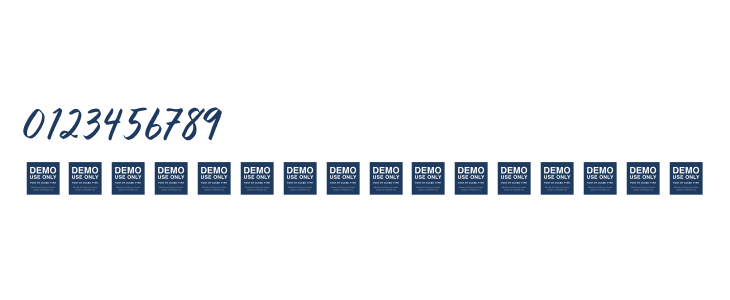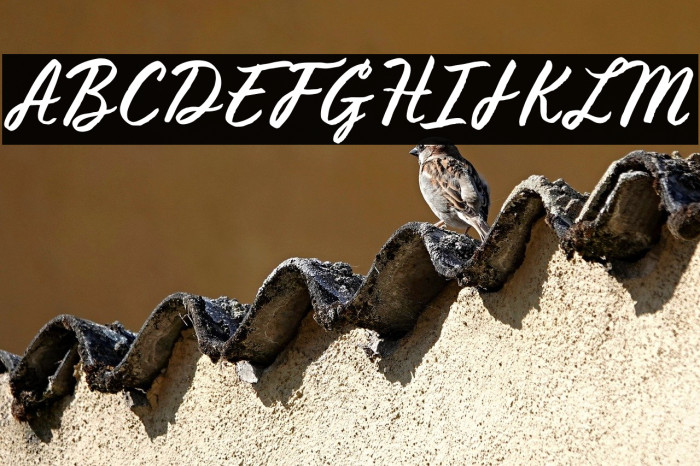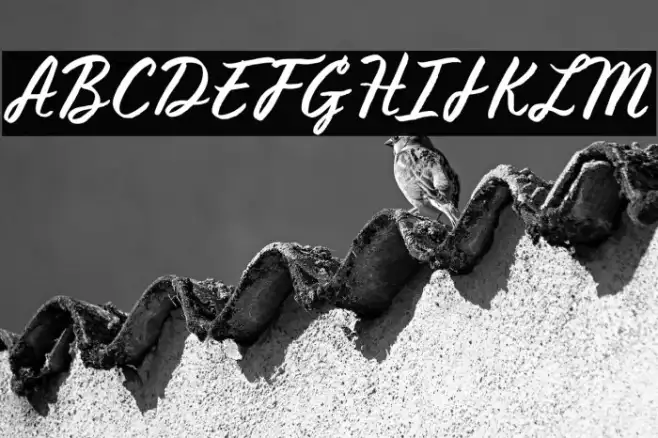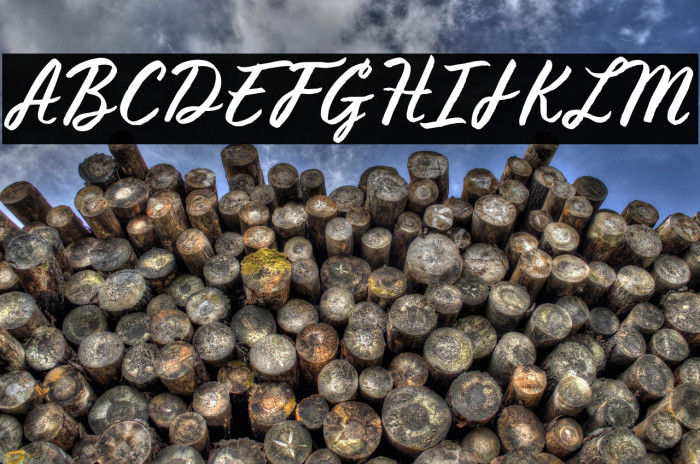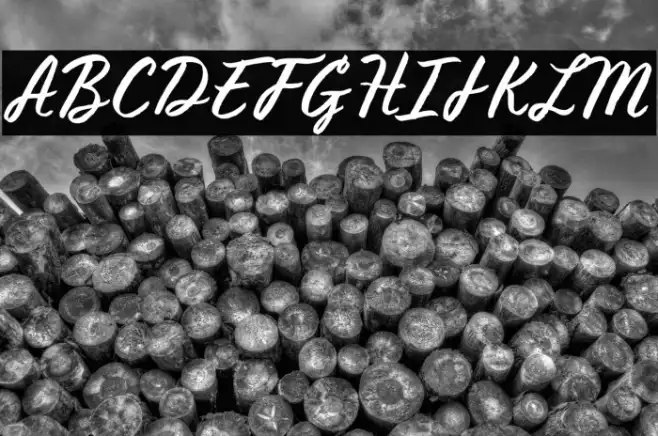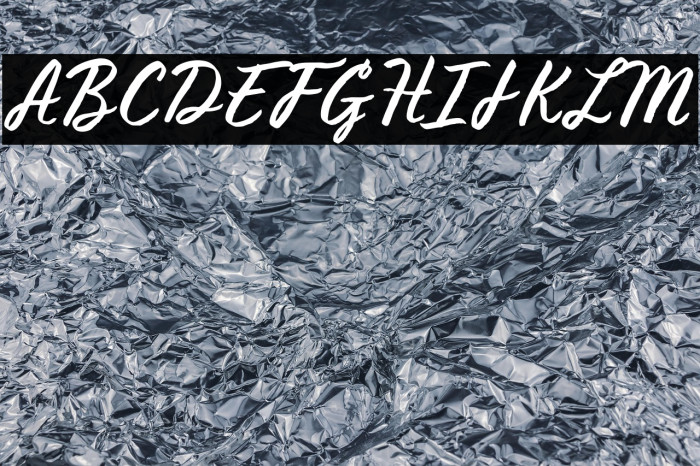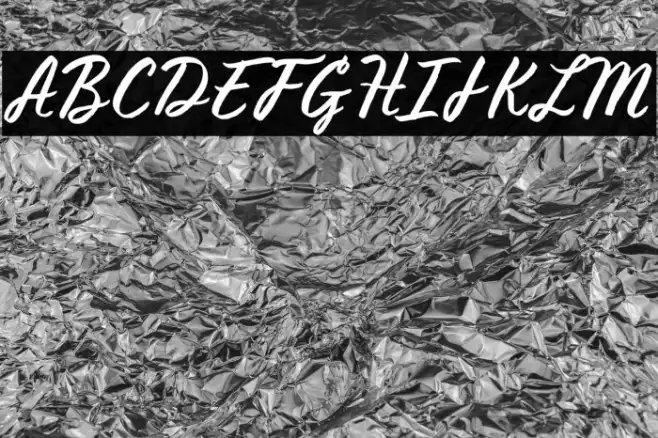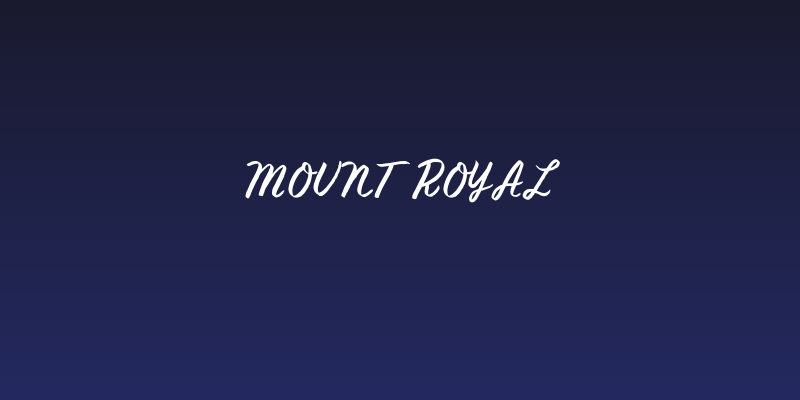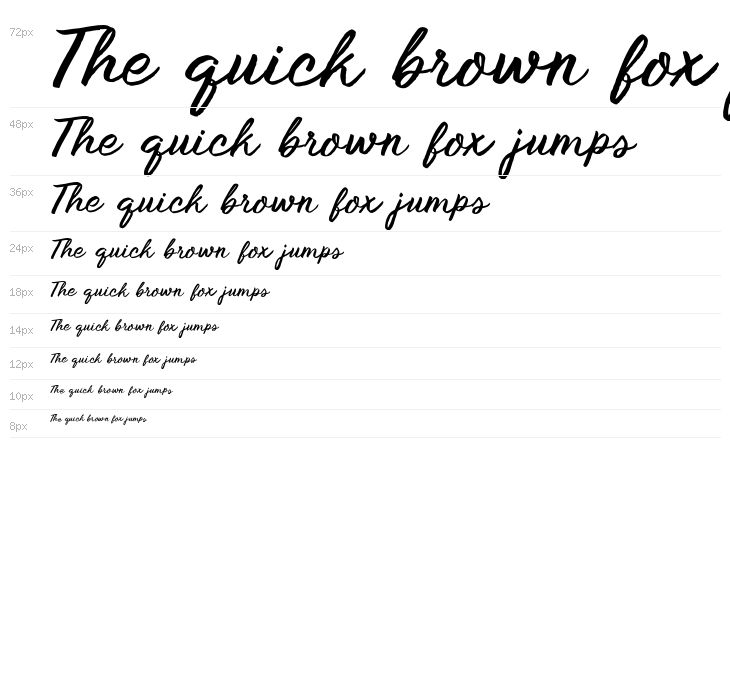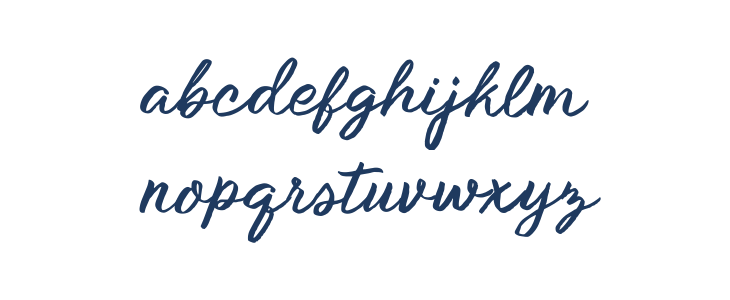
Mount Royal Font
Mount Royal Description
This font features a flowing, cursive style with a handwritten appearance. The characters are connected, creating a seamless and elegant look. The strokes are smooth and consistent, with a slight slant that adds to its dynamic feel. The uppercase letters are bold and prominent, while the lowercase letters maintain a graceful continuity. Numbers and special characters are designed to match the overall aesthetic, ensuring a cohesive look across all text elements. This font exudes a sense of sophistication and personal touch, making it ideal for projects that require a humanistic and artistic flair.